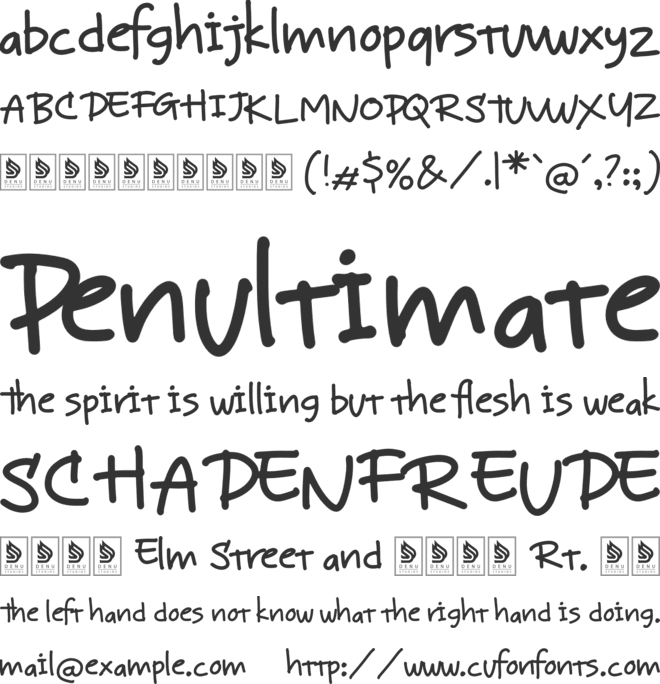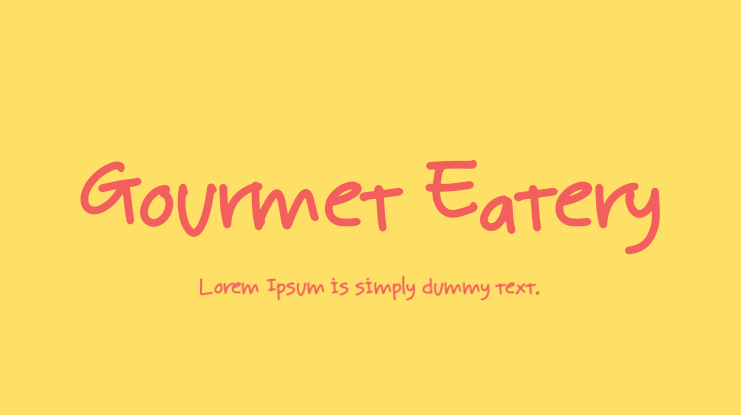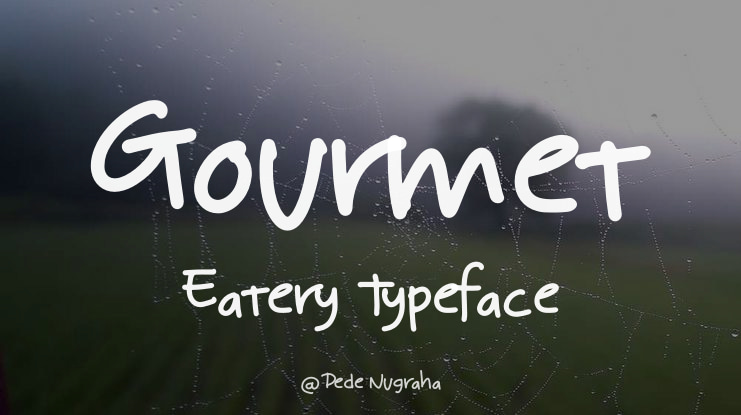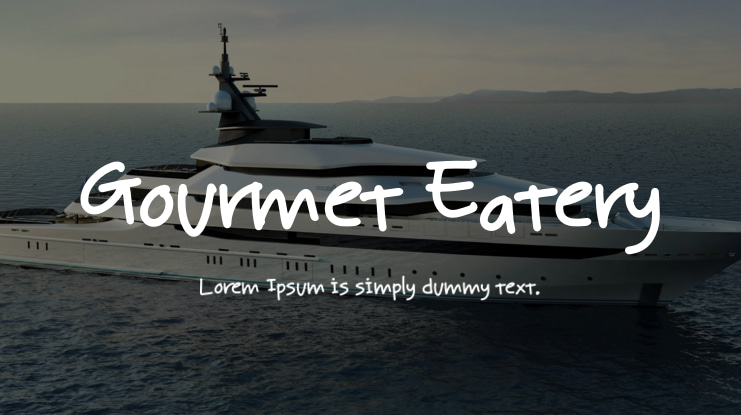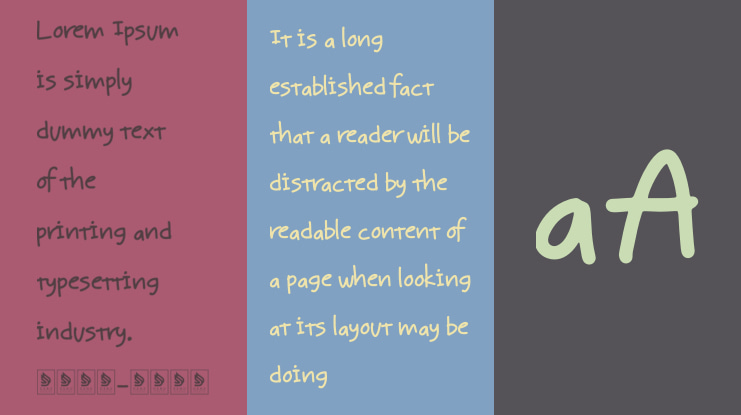
Gourmet Eatery | Doodle Typeface is a versatile font suitable for various projects such as logos, branding, homeware designs, packaging, mugs, quotes, posters, apparel, book covers, invitations, greeting cards, labels, photography, watermarks, special events, and more that require a fun and playful touch of a Doodle Typeface.